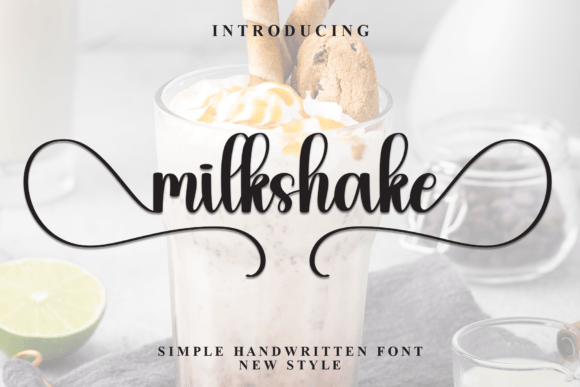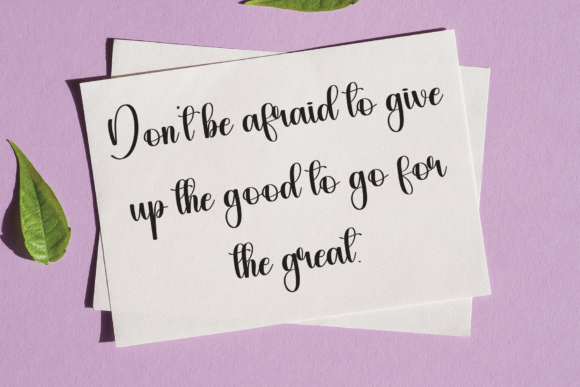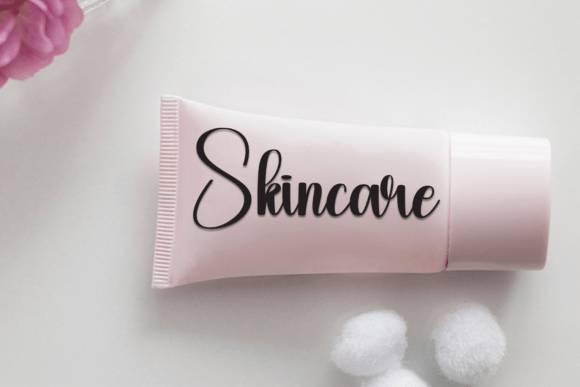
Milkshake Font
About the Milkshake Font
Make a bold statement with Milkshake Font, a powerful and memorable font. Experience the charm of the Milkshake, your go-to choice for giving an added layer of sweetness and warmth to your creations. This friendly, engaging script beautifully encapsulates playfulness and elegance, making it an unparalleled choice for wedding invitations, cards or any design craving a dash of delight. Its adorable aesthetic is sure to captivate viewers, effortlessly adding a lighthearted and fun touch to your design palette.
Milkshake excels in applications requiring a touch of playful elegance, such as short headlines, logos for boutiques or cafes, and wedding stationery. It also works well on packaging for products targeting a younger, sophisticated demographic. However, its delicate forms make it unsuitable for body text or UI elements where legibility is paramount; long stretches of Milkshake would strain readability.
Consider pairing Milkshake with a clean sans-serif like Montserrat for a balanced contrast, or a warmer serif like Playfair Display for a more classic feel. For a modern twist, a geometric sans-serif like Futura would create a striking juxtaposition.
The Milkshake font possesses a friendly, elegant personality, lending itself to brands emphasizing charm and approachability without sacrificing sophistication. Avoid using it in contexts demanding strong authority or technical precision.
Milkshake Font Usage Examples
Milkshake Font Example